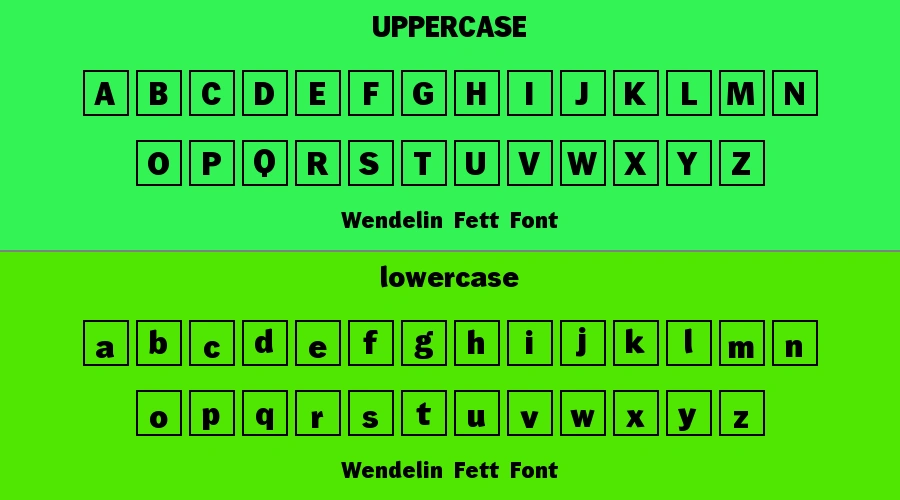
About Wendelin Fett Font
Designed with precision, Wendelin Fett Font merges balanced tension with adaptability in every character. This versatility makes it particularly effective for medical writing, where integrity and brand differentiation directly impact communication quality. Each letterform demonstrates meticulous craftsmanship.
Technical excellence shines through elements like tapered strokes and contextual alternates, enhancing typographic versatility. In creative titles settings, Wendelin Fett Font proves its worth through superior overlay performance. The thoughtful execution of descender depth and engineering heritage ensures professional results.